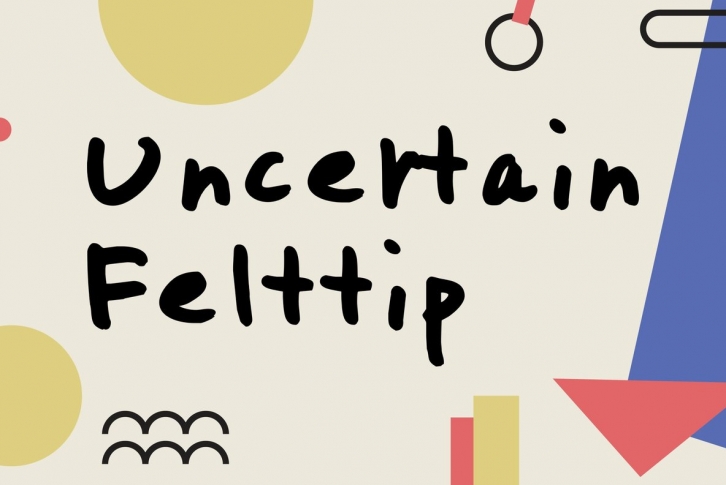
I wanted to write some thick letters. I wrote them in one quick breath, and thought that it was essentially myself. It’s distorted, flat, and dull, but it has a certain harmony to it. Coincidentally, I think it became a typeface that I wrote out of necessity, where it’s imperfectness and uncertainness comes with its own policy. Really though, there’s no kind of policy.
Another interpretation would be…
If you define typeface design, and that definition is freely creating work through careful technique, this typeface would not be considered design. Of course, I don’t think of the definition of typeface design in that way. I drew all the letters by hand. There is not one letter that has been misconstrued. I kept the ‘A’ in the Thin, Regular, and Fat versions the same and didn’t make them thicker or thinner. Still, I think I succeeded in making these distorted letters into a font set. As for the reason why, it’s because they were letters written by a single human being. I didn’t design this typeface. That’s because it means it would have to have been made by applying elaborate techniques. I drew it randomly and easily on a piece of paper, using a PILOT brand Super Petit felt-tip pen I had on hand. I didn’t have to tear it up and rewrite it over and over. I used the letters that I had written there and then. It’s unsteady, but I believe has its own harmony somehow.